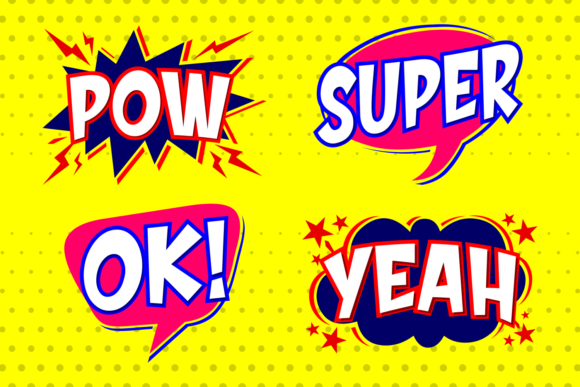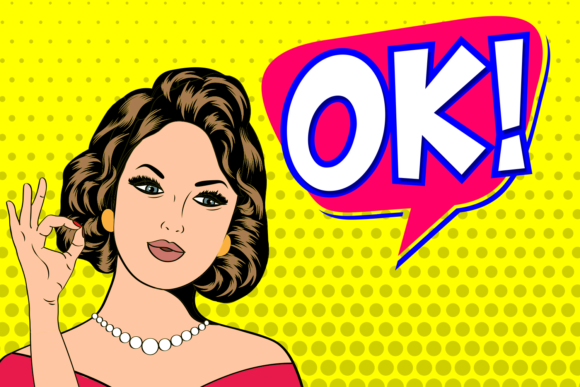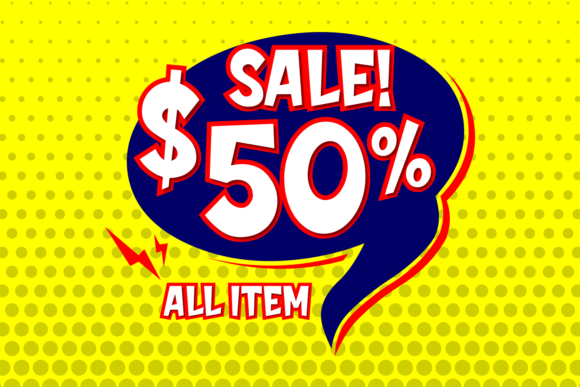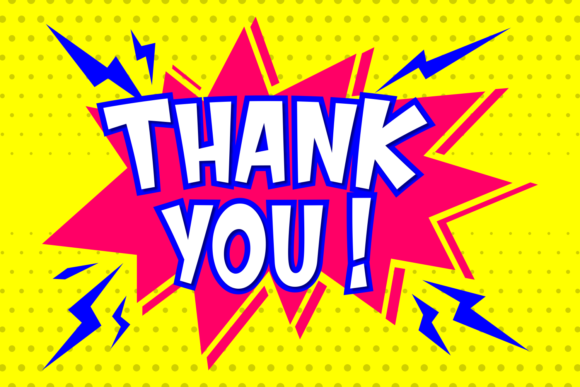
Aprilio Bomber Font
About Aprilio Bomber Font
The Aprilio Bomber is a striking script font. It comes in a regular and italic version which gives you the opportunity to create multiple unique designs with just this one download. It has a striking style and is perfect for comic designs.